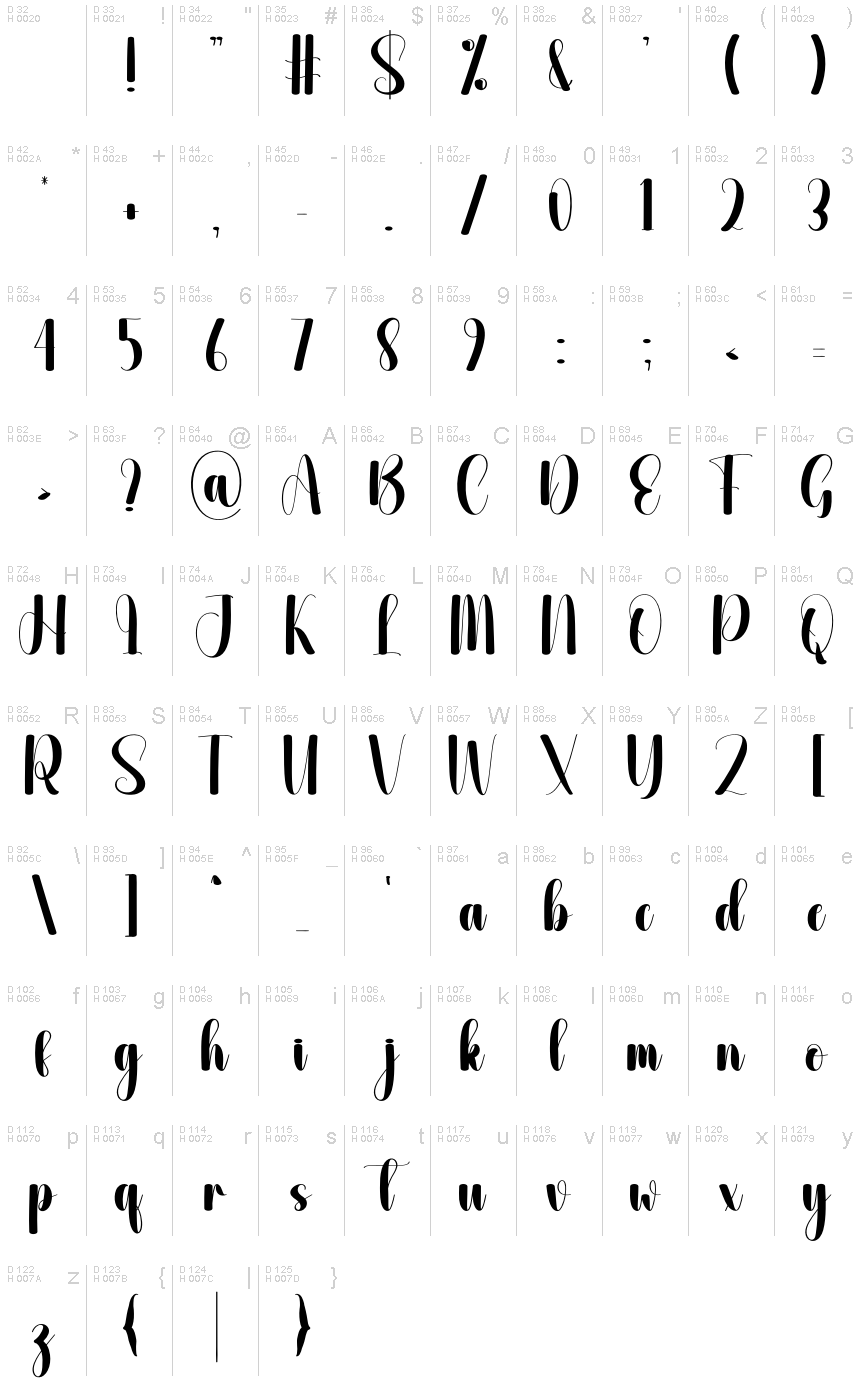
Snackjar
Snackjar font by Scratchones is an elegant and playful calligraphy typeface with a flowing, contemporary style. It conveys warmth and friendliness, making it a suitable free font for modern branding across food and beverage, hospitality, or personal care industries. Its versatile aesthetic can add a stylish touch to packaging design or event invitations.
Use Snackjar in menus, café branding, restaurant signage, product labels, beauty products packaging design. The free calligraphy font looks great in wedding cards (and other event invitations), books covers of bestsellers novels as well as magazines & newspapers titles.